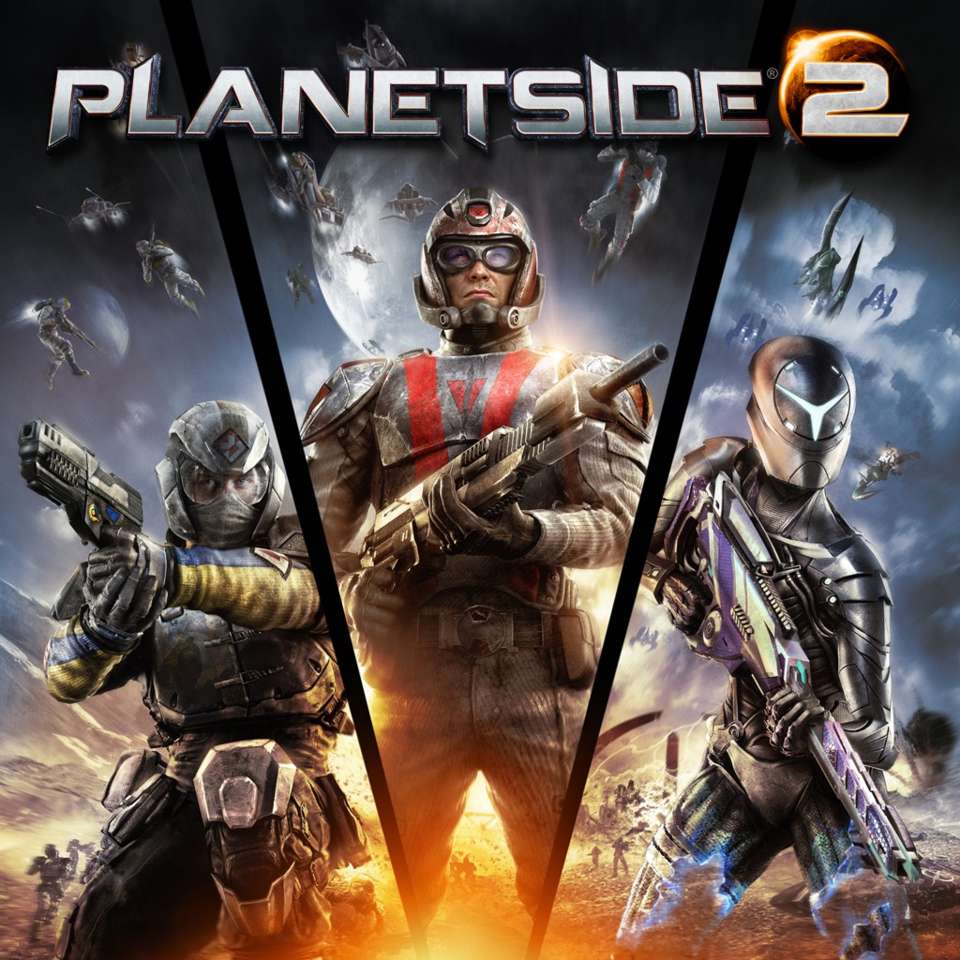
PlanetSide 2 Font
Fonts in UsePlanetSide 2 is a free-to-play massively multiplayer online first-person shooter game set in a persistent open-world sci-fi universe, where players can engage in large-scale battles between three factions for territorial control.
The font utilized in the game's logo resembles Coalition, a decorative and weathered font created by TracerTong. Meanwhile, the logo for the initial video game seems to have been designed with Trotzkopf Bold font from ITC.